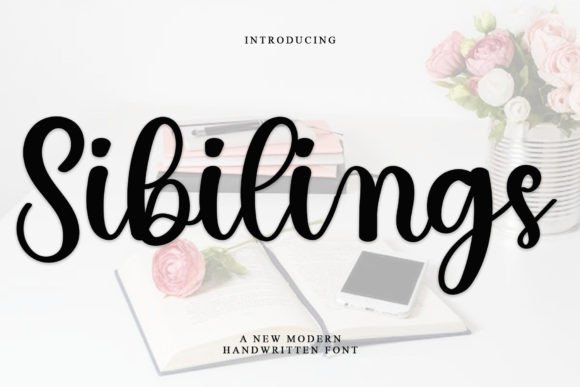
Dive into the world of Sibilings Font, a captivating script font family designed to evoke a sense of warmth and charm. Created by the talented PiPi Creative, Sibilings is more than just a font; it's an expression of creativity waiting to be unleashed.
Adorned with an elegant touch, Sibilings Font possesses a timeless beauty that transcends trends. Its meticulously crafted characters exude a distinct personality, inviting you to create designs that leave a lasting impression. Whether you're a seasoned designer or just starting, Sibilings Font is the perfect companion for your creative journey.
With its graceful curves and playful swashes, Sibilings Font brings a touch of magic to your Christmas stockings. Imagine the delight on your loved ones' faces as they receive stockings adorned with Sibilings' enchanting script. It's a gift that will be cherished for years to come, a tangible expression of your love and care.
But Sibilings Font isn't just for Christmas stockings. Its versatility extends far beyond the holiday season. Use it to create stunning logos that capture your brand's essence, eye-catching social media posts that demand attention, or heartfelt invitations that warm the hearts of your guests.
Sibilings Font is a font that speaks to the heart. Its charming style adds a personal touch to any project, making it perfect for creating designs that connect with your audience on a deeper level. Whether you're a professional designer or a creative enthusiast, Sibilings Font is the key to unlocking your design potential.